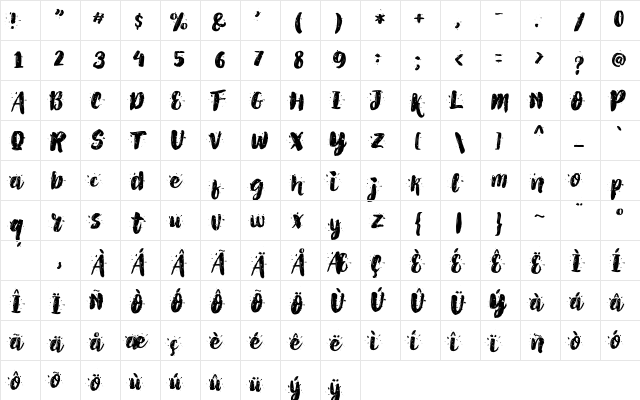
AlexDirte Brush Font Regular
| Foundry | Debut Studio |
| Designer | Debut Studio |
Design Context for AlexDirte Brush Font Typeface
AlexDirte Brush Font flows with the natural rhythm of handwritten lettering, making it ideal for designs that call for warmth and personal expression.
Font Pairing: Combine AlexDirte Brush Font with a simple geometric sans for maximum contrast — the tension between flowing curves and clean structure is a classic typographic pairing.
Pro Tip: Pair AlexDirte Brush Font with a clean sans-serif for supporting text. The contrast between fluid script and geometric structure creates an elegant typographic hierarchy.